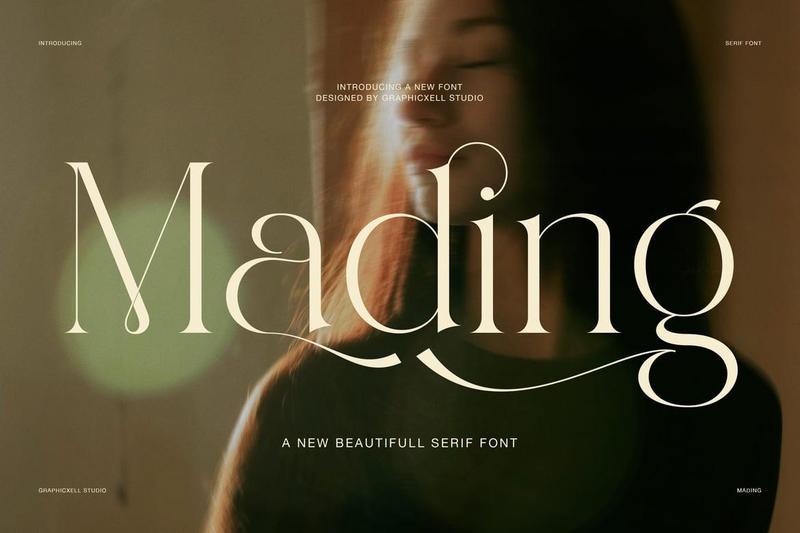
Mading Elegant Display Serif Font is a refined typeface designed for modern branding and editorial use. It combines high contrast strokes with smooth curves, so it creates a strong yet elegant visual voice. Moreover, it is built for designers who want luxury and clarity in one style. Therefore, it works well for fashion branding, magazine layouts, and premium identity projects. In addition, it brings a balanced mix of classic serif roots and modern design taste.
Mading also supports strong readability, so it performs well in both large headlines and short text. Furthermore, its letter shapes are carefully crafted, which helps create a smooth reading flow. Because of this, designers can use it for luxury logos, editorial titles, and packaging design. In addition, the font includes elegant alternates and stylish ligatures, so users can create unique typography styles. Moreover, it adapts well to both print and digital media, which makes it very flexible for modern creative needs. For example, it can be used in fashion campaigns, wedding invitations, and high-end product branding. However, it still remains simple enough to maintain clear communication in any layout. Therefore, it is a reliable choice for professional designers.
**Key Features:**
– Elegant serif style
– High contrast strokes
– Modern editorial look
– Stylish ligatures and alternates
– Luxury branding support
– Strong readability
– Print and digital ready
Finally Mading delivers a timeless and modern feel at the same time Moreover it helps brands look more premium and trustworthy Therefore it is perfect for designers who want a clean and elegant identity system In conclusion this font offers both beauty and function in one balanced typeface
Additionally it is highly suitable for luxury branding systems that require consistency across multiple platforms Because of its elegant structure it pairs well with minimalist sans serif fonts As a result designers can create strong visual contrast in layouts Moreover it enhances user attention without overwhelming the design Therefore it is a strong choice for modern creative studios working on premium visual identity projects
Overall Mading is a refined serif font built for modern luxury design and strong visual storytelling in editorial and branding work